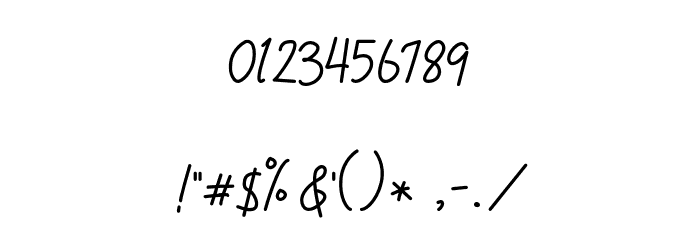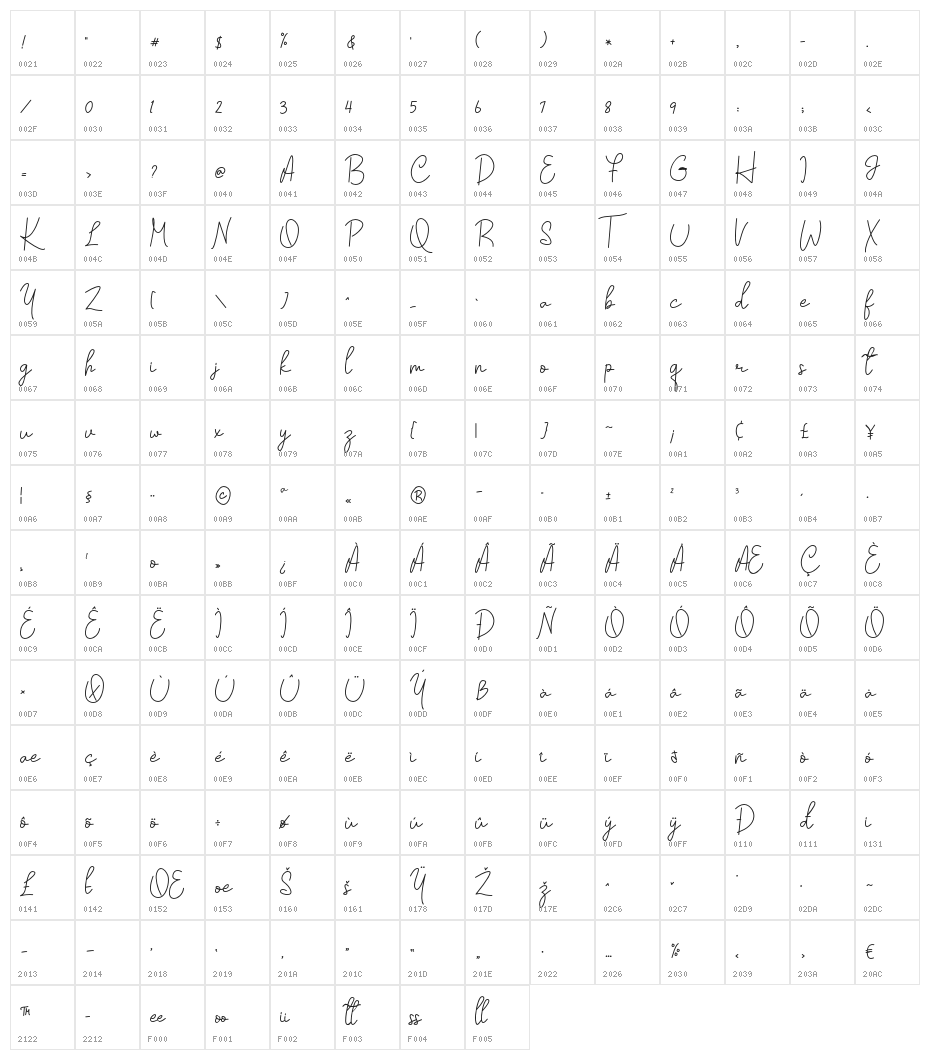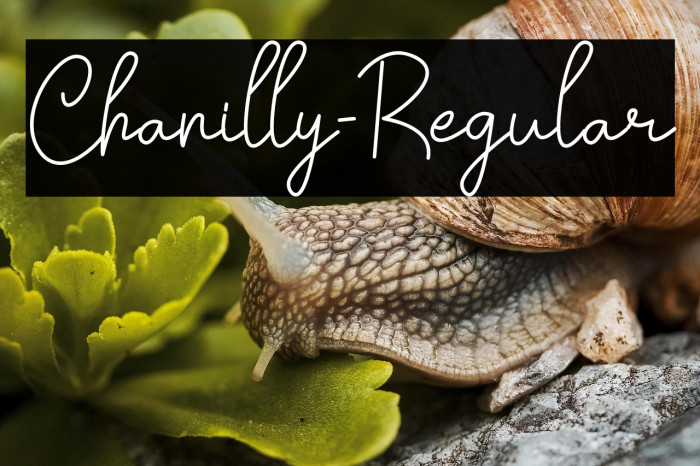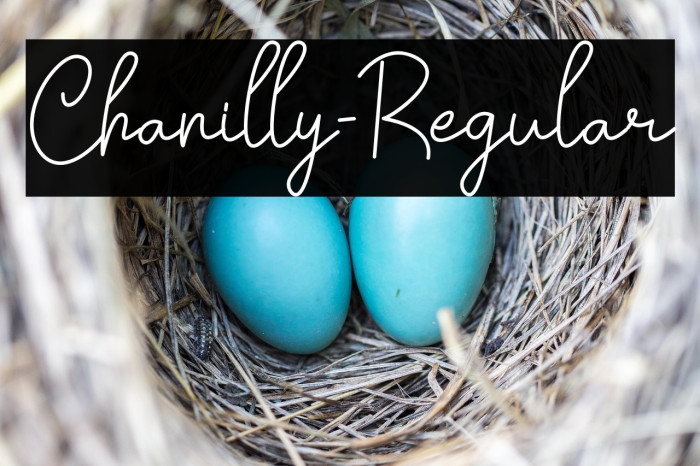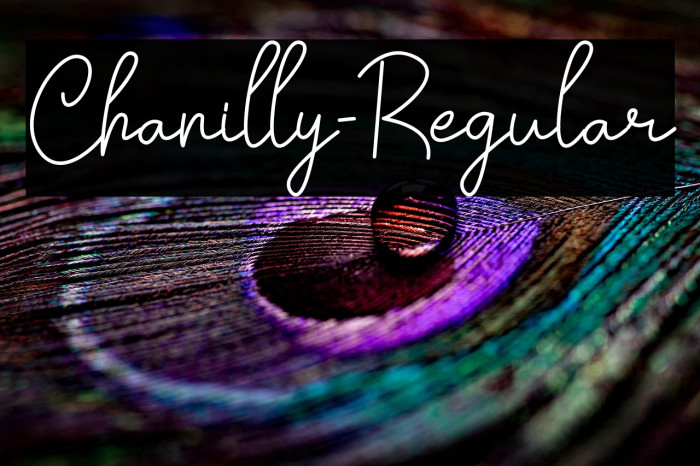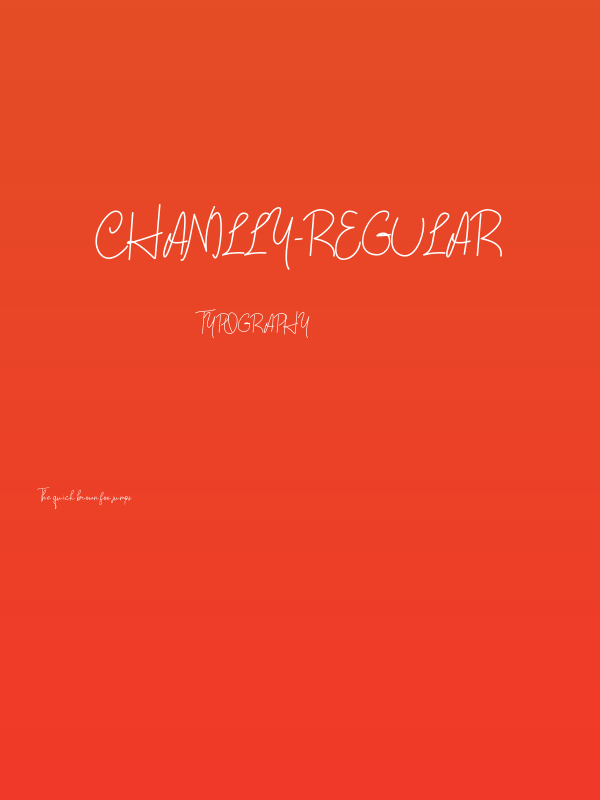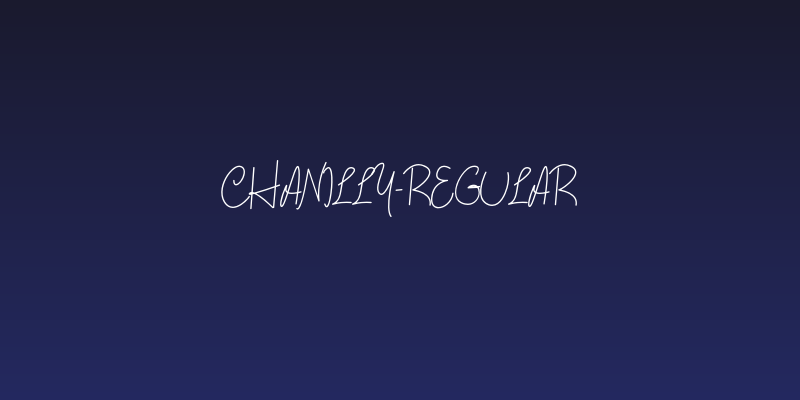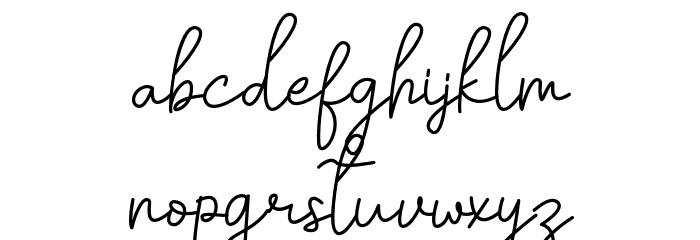
Chanilly-Regular Font
Chanilly-Regular Description
This font features an elegant and flowing script style, characterized by its smooth, cursive letterforms that mimic the fluidity of handwriting. The uppercase letters are tall and slightly narrow, with graceful loops and swashes that add a touch of sophistication. The lowercase letters maintain a consistent flow, enhancing readability while retaining an artistic flair. The numerals and special characters are designed to complement the overall aesthetic, ensuring a cohesive look across all text. This font is ideal for projects that require a personal, yet polished touch.
Overall StyleElegant, Handwritten